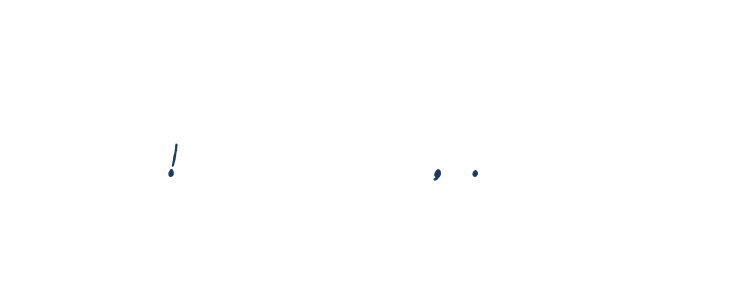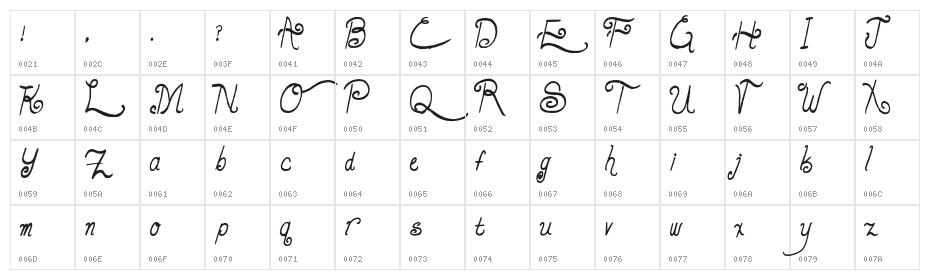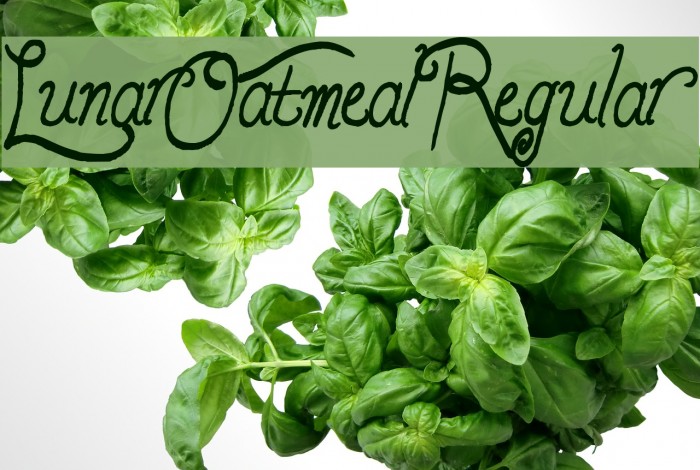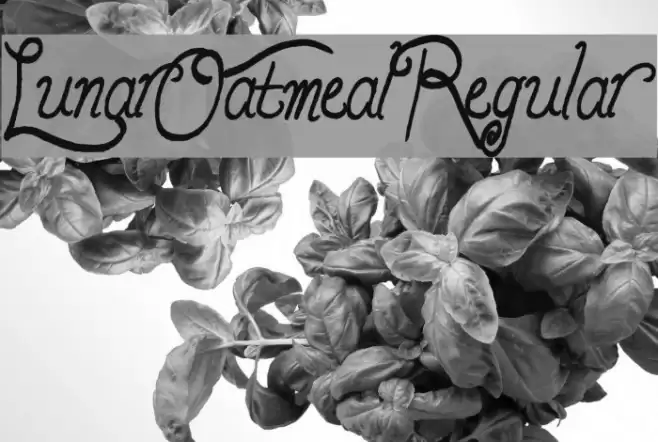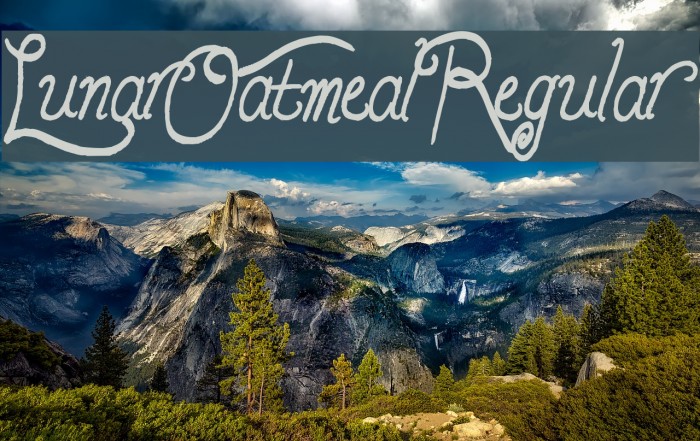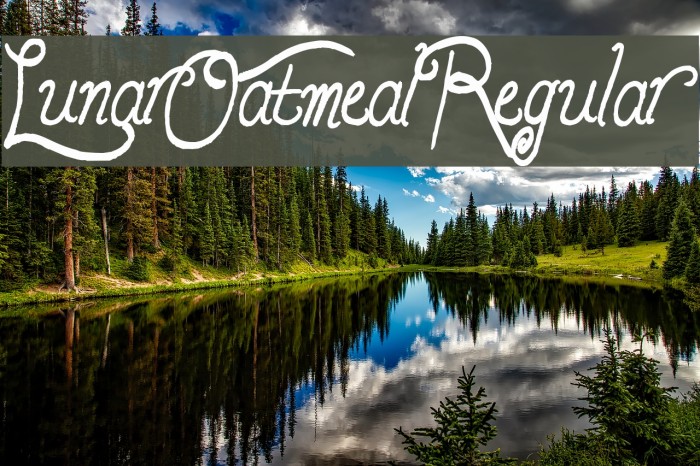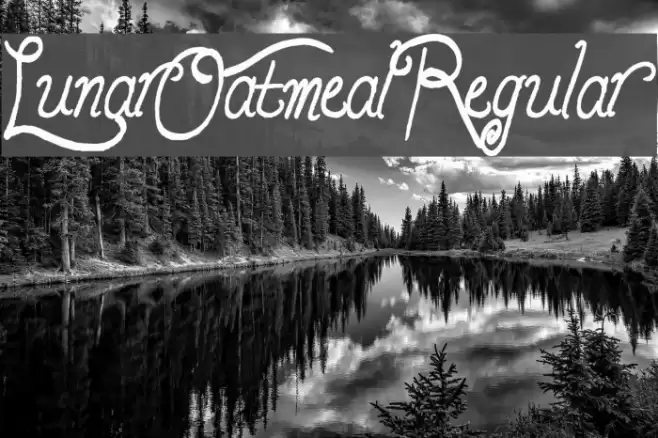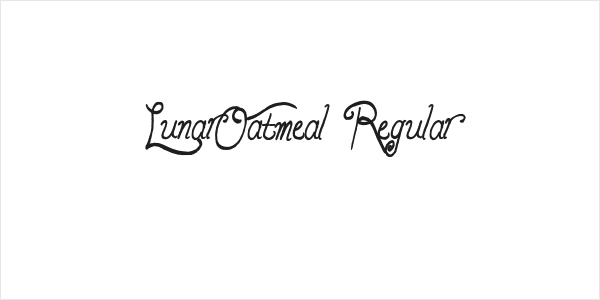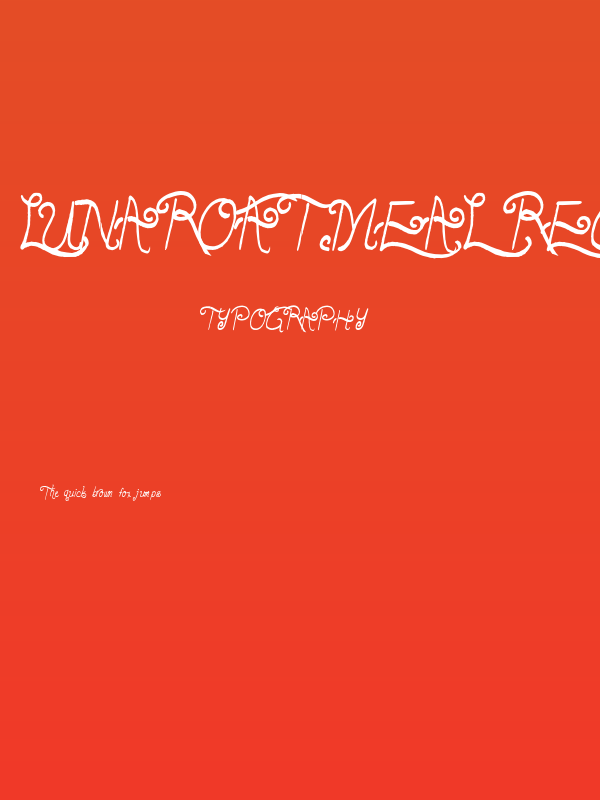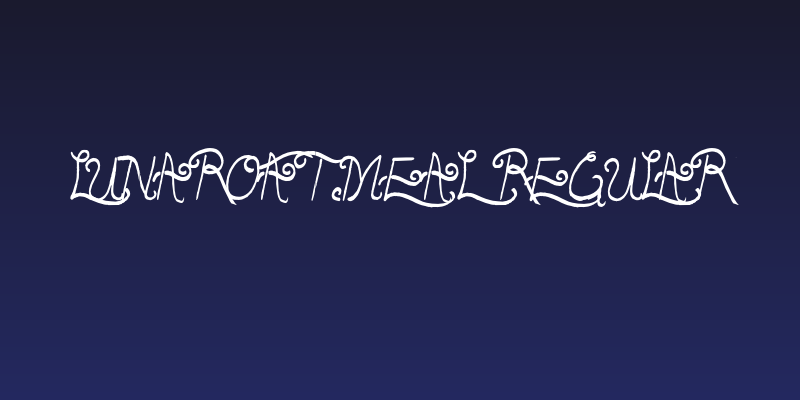
LunarOatmeal-Regular Font
LunarOatmeal-Regular Description
This font features an artistic and whimsical design, characterized by its elaborate and decorative letterforms. Each character is adorned with intricate curls and swirls, giving it a playful and unique appearance. The uppercase letters are particularly ornate, with exaggerated loops and flourishes that create a sense of movement and fluidity. The lowercase letters maintain a similar style, though they are slightly more restrained, ensuring readability. The overall design is reminiscent of hand-drawn calligraphy, with a touch of fantasy and elegance. This font is perfect for projects that require a creative and eye-catching typeface, such as invitations, posters, or branding for artistic ventures.
| Proposed Projects | Ideal for invitations, artistic posters, and creative branding projects. |